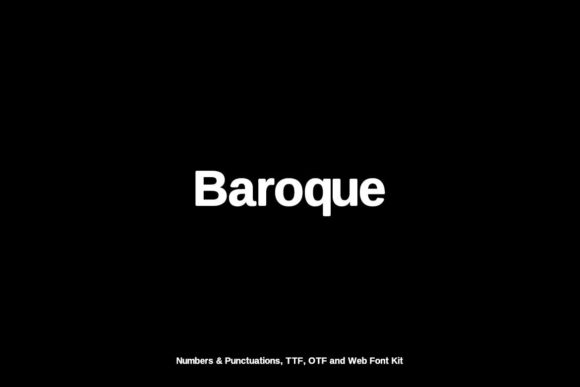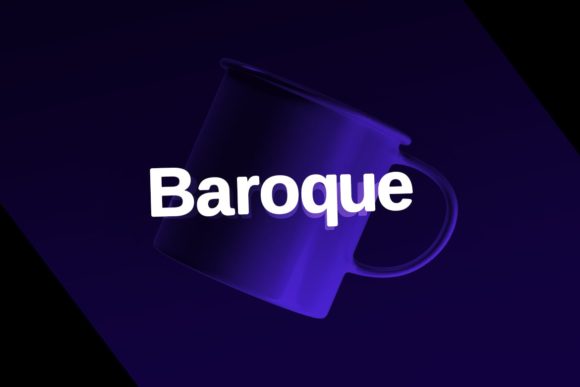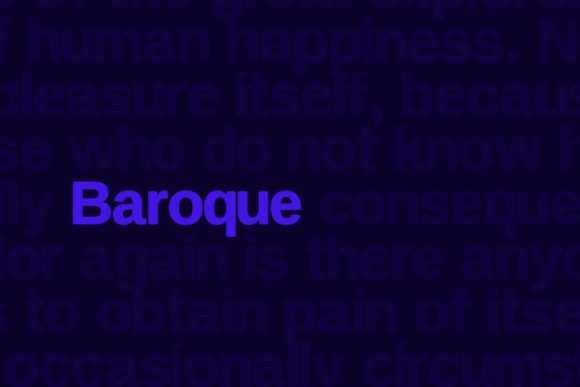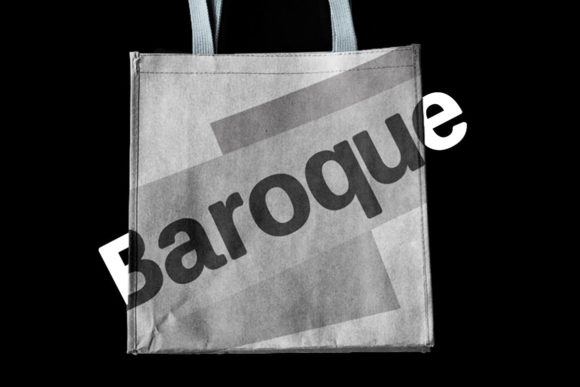
Baroque Font
About the Baroque Font
Make a bold statement with Baroque Font, a powerful and memorable font. Baroque is a modern sans serif typeface suitable for a wide variety of designs. Get inspired by its contemporary coolness!
Baroque’s strong, geometric forms make it ideal for headlines, logos, and short, impactful branding elements. It excels in posters and packaging where a bold, modern statement is needed, but its less-than-optimal x-height makes it unsuitable for extended body text or UI elements requiring high readability.
Its core personality is confident and contemporary, conveying a sense of sophisticated boldness. Brands aiming for a cutting-edge, high-impact image will find it a powerful asset.
Pairing Baroque with a clean sans-serif like Helvetica Neue for body text creates a strong visual hierarchy. For a softer contrast, consider a warmer, slightly more rounded sans-serif, or even a delicate script font for secondary elements to balance its geometric structure and add visual interest.